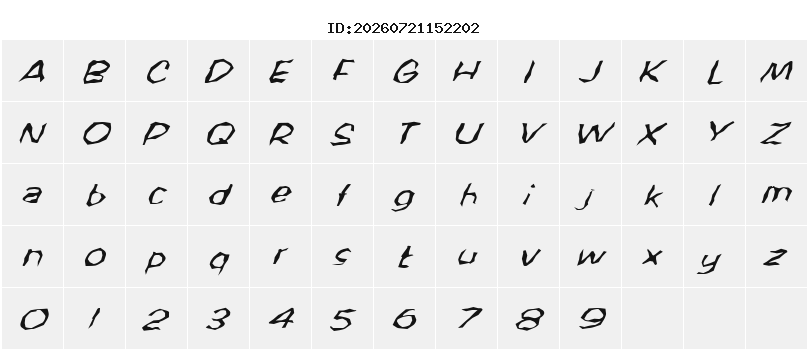
FZ WACKY 59 ITALIC Preview
• Font Name: FZ WACKY 59 ITALIC
• Full Font Name: FZ WACKY 59 ITALIC
About FZ WACKY 59 ITALIC.ttf
FZ WACKY 59 ITALIC.ttf is a modern, elegant sans-serif font designed for ultimate readability and visual harmony. Perfect for branding, headlines, web design, and print materials.